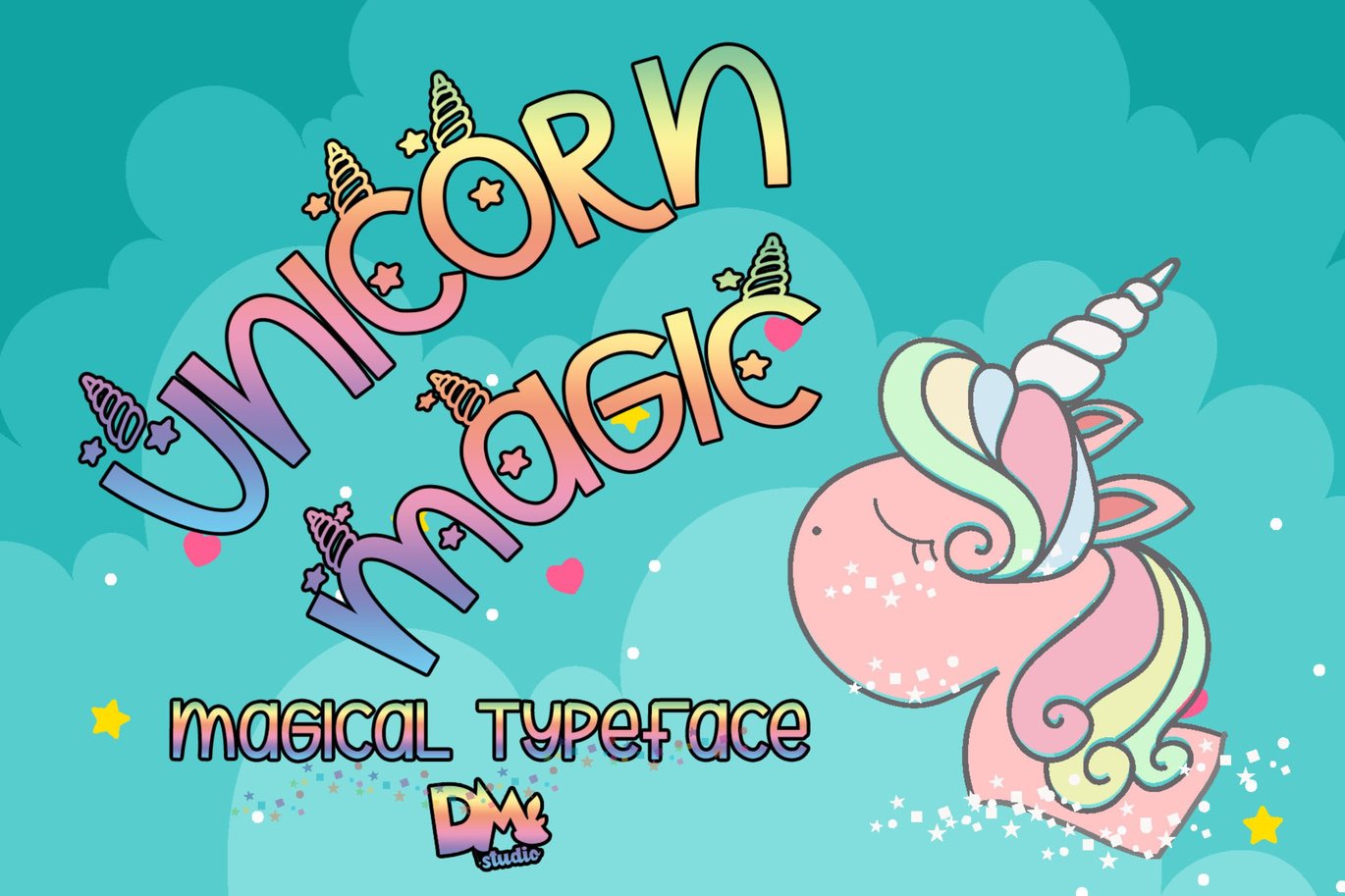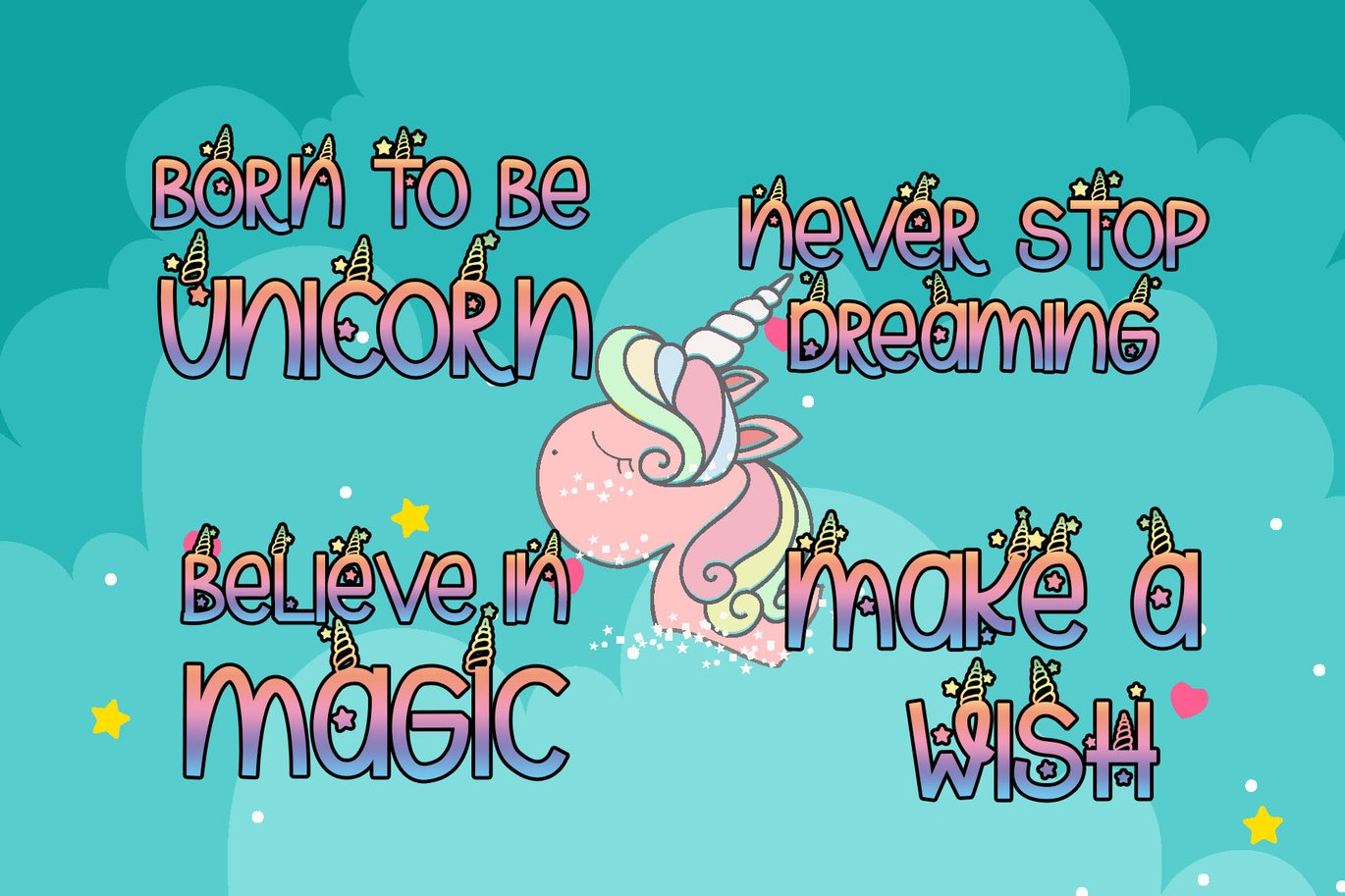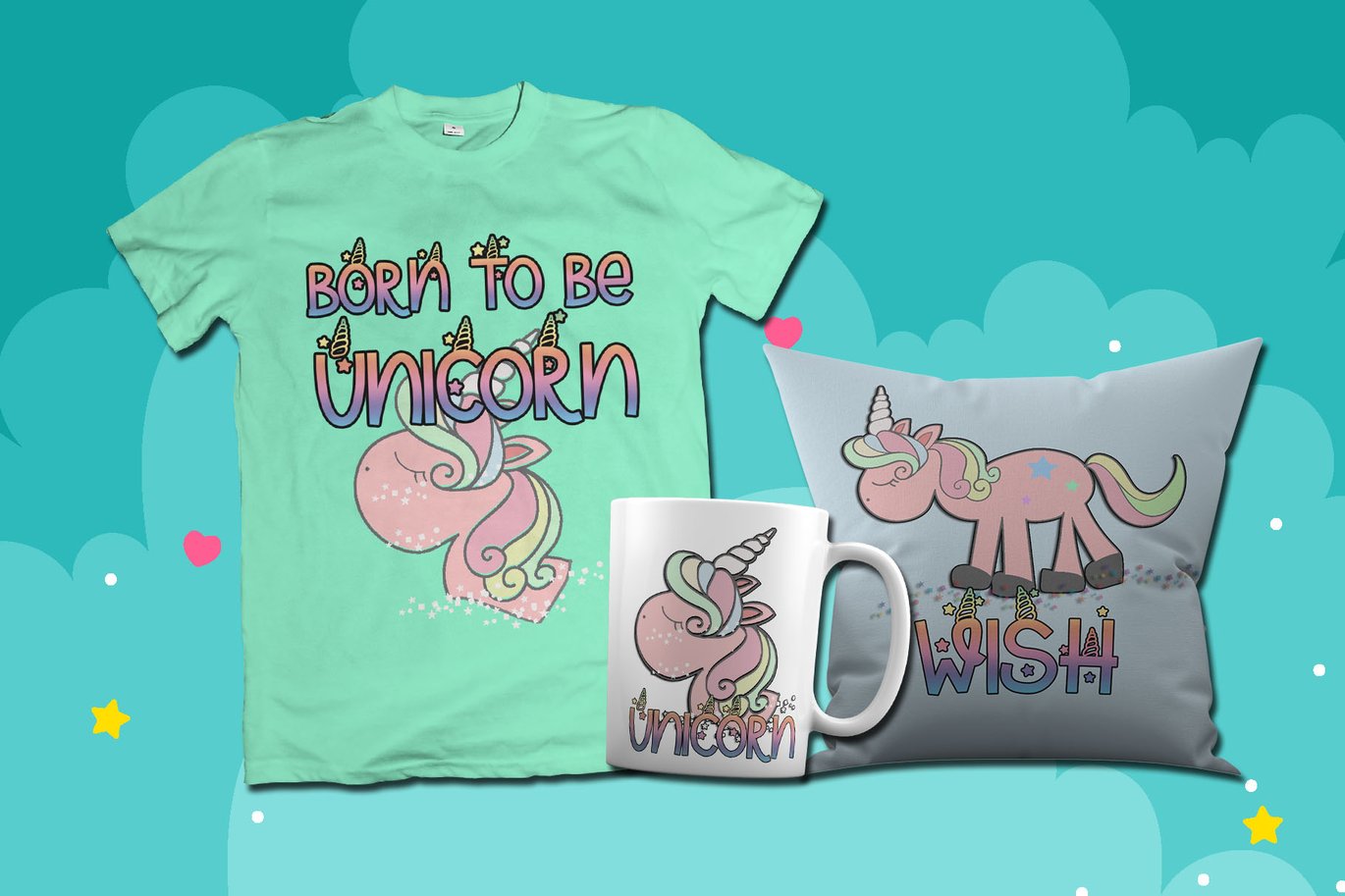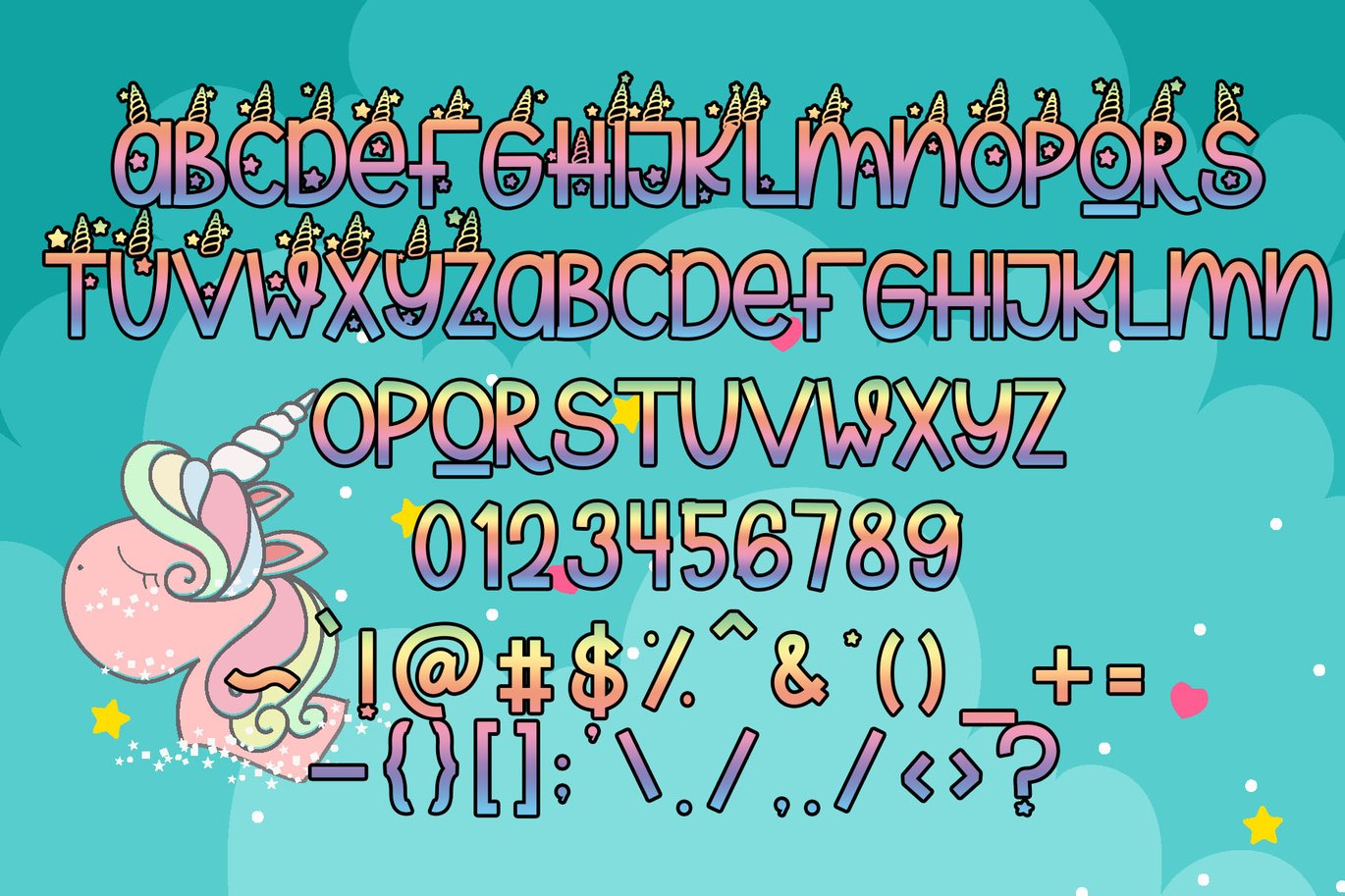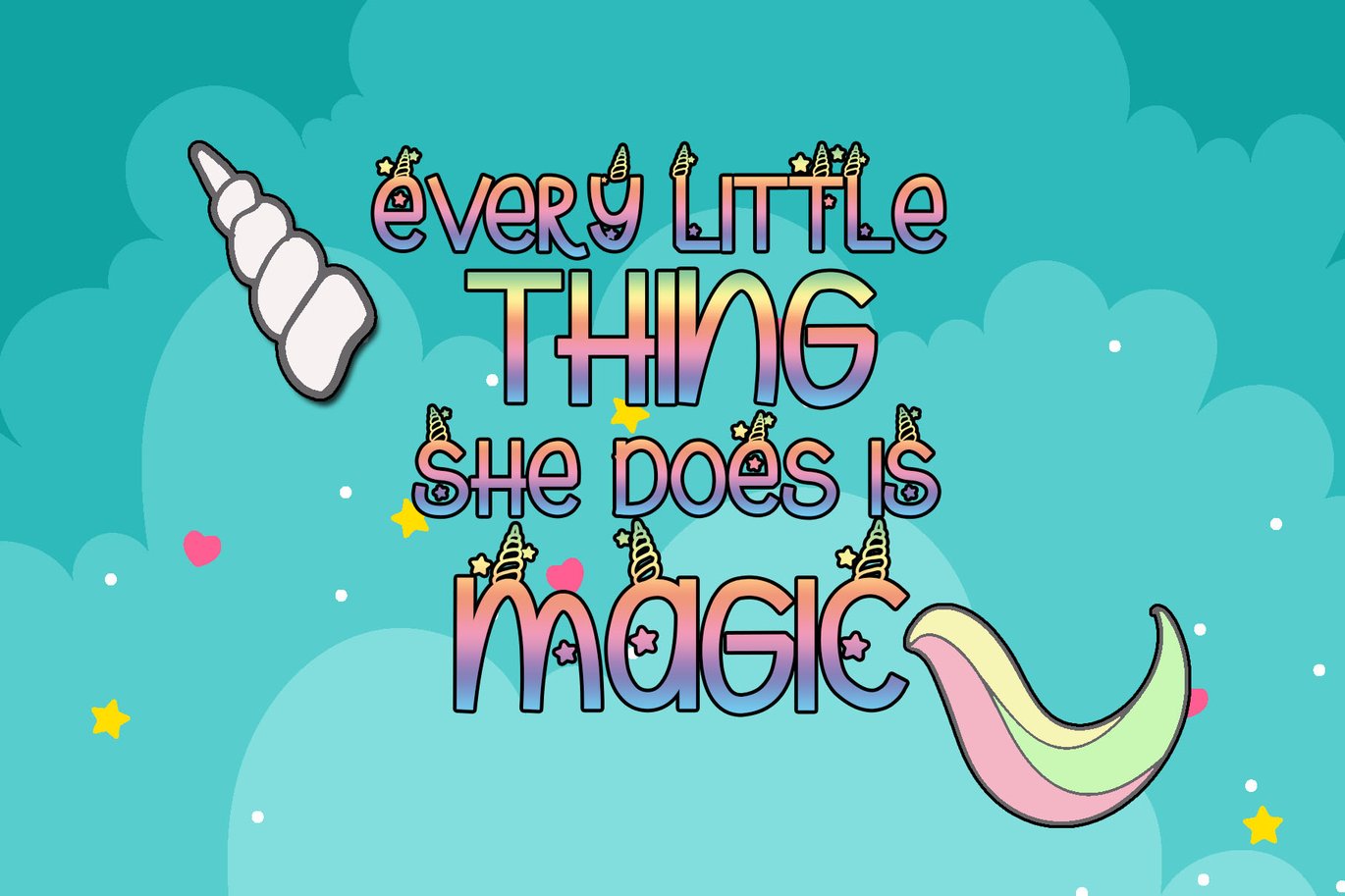
Unicorn Magic – Magical Typeface
Make the magical words, with UNICORN MAGIC TYPEFACE !
This is a unique, with unicorn horn above the characters! We make sure this typeface is easy to use, no need special additional program. Just turn into UPPERCASE to access the unicorn-horn glyphs style and lowercase to access the regular glyphs!
Unicorn Magic Features:
- UPPERCASE ( for unicorn-horn style )
- Lowercase ( for regular style )
- Numerals
- Standard Symbols and punctuation